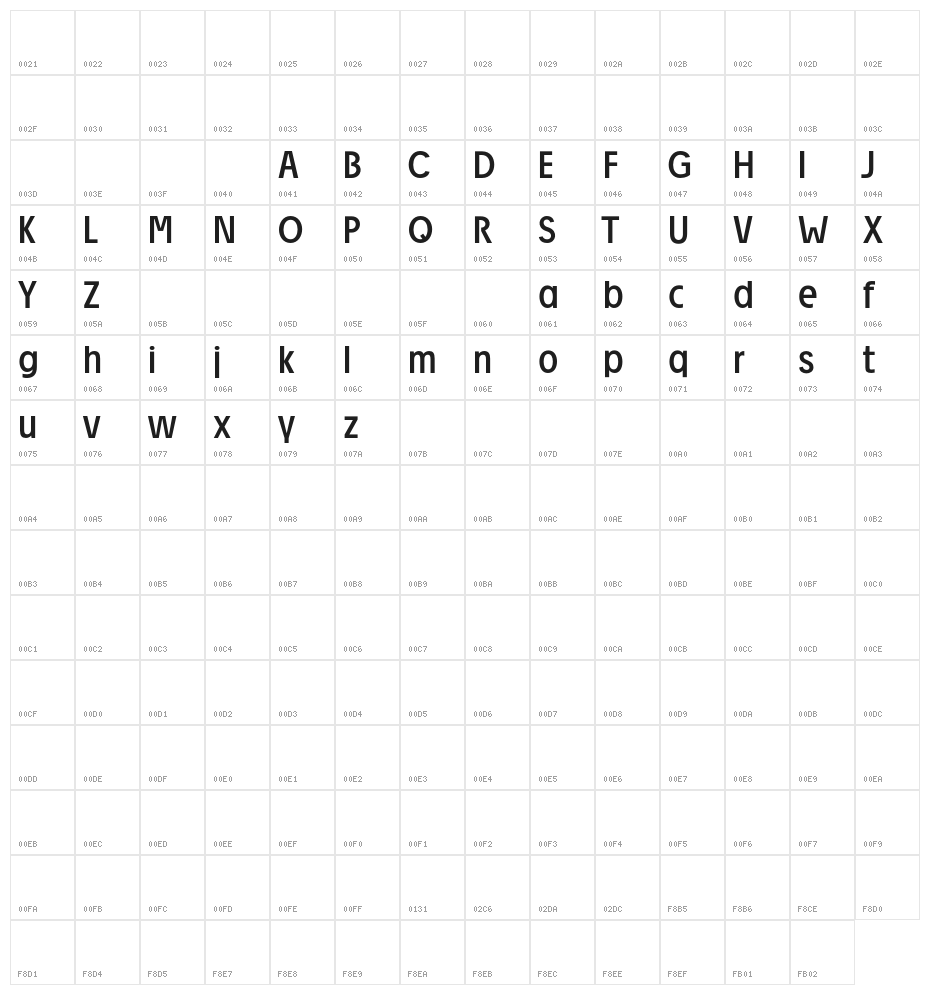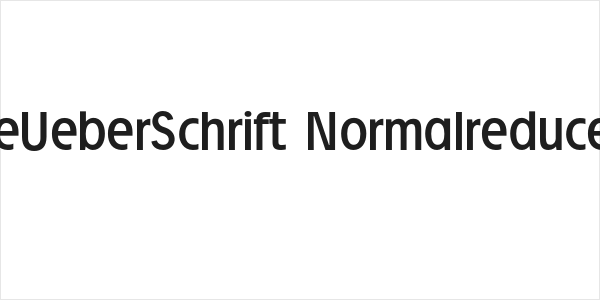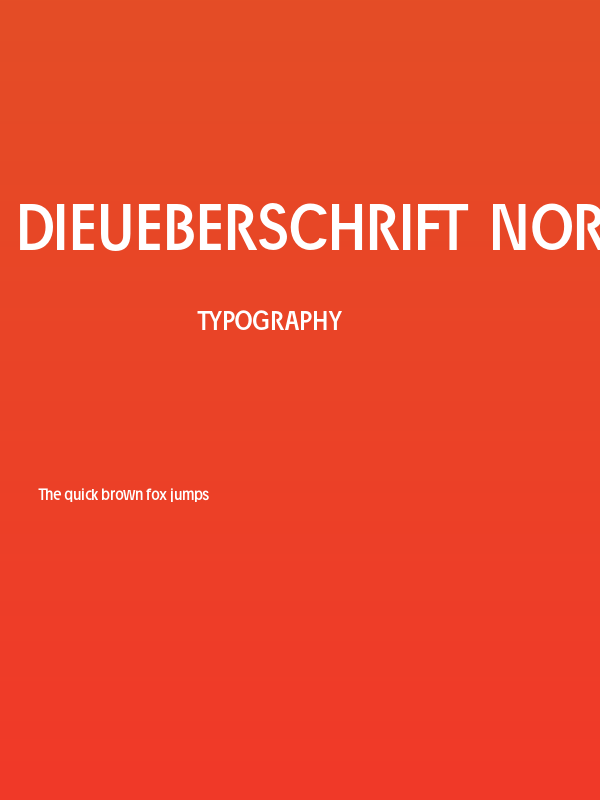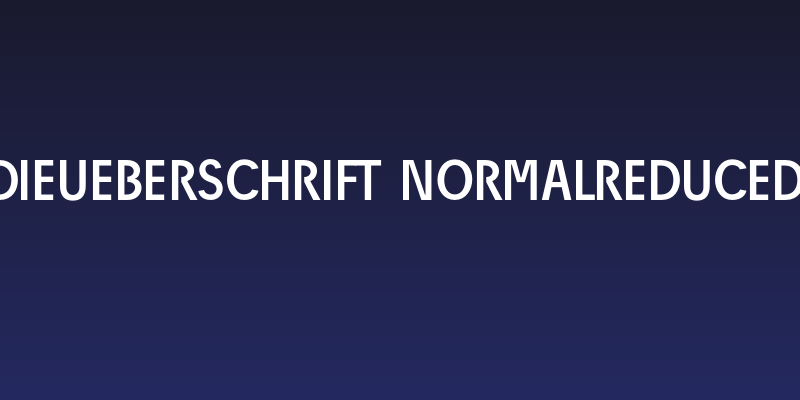
DieUeberSchrift-Normalreduced Font
DieUeberSchrift-Normalreduced Description
This font features a clean and modern sans-serif design, characterized by its straightforward and geometric letterforms. The characters exhibit a uniform stroke width, contributing to a balanced and harmonious appearance. The uppercase and lowercase letters are well-proportioned, with a slight emphasis on verticality. The font maintains a consistent baseline, ensuring readability and clarity across various applications. Its simplicity and lack of decorative elements make it highly versatile, suitable for both digital and print media.
Proposed ProjectsIdeal for web design, corporate branding, user interfaces, and editorial layouts.